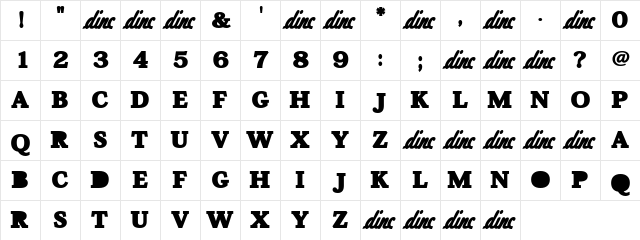
Levi Stubbs Tears Regular
Design Context for Levi Stubbs Tears Typeface
Levi Stubbs Tears takes a measured approach to typography — its balanced proportions and neutral character make it a reliable workhorse for both digital and print work.